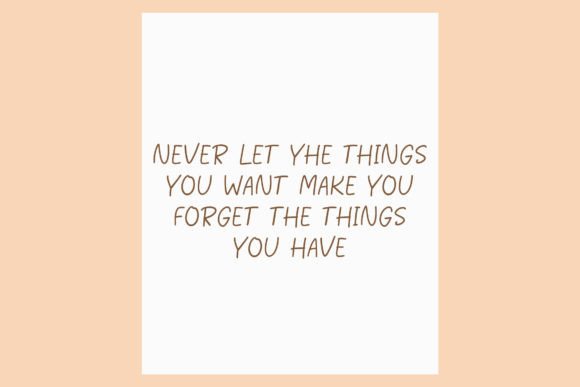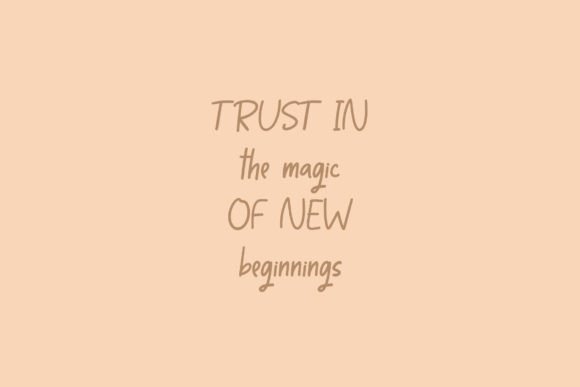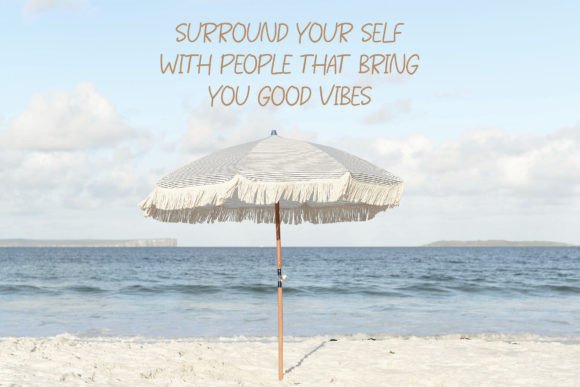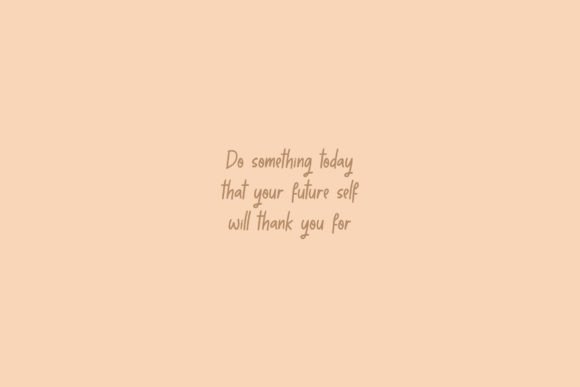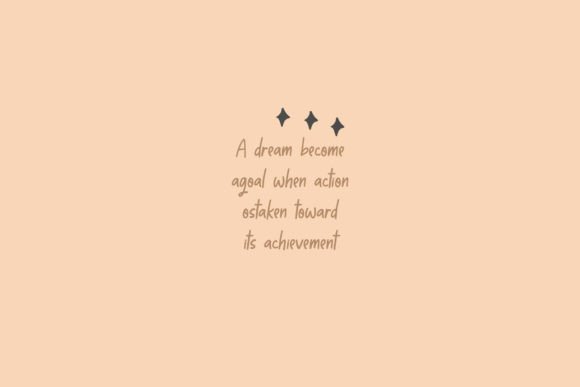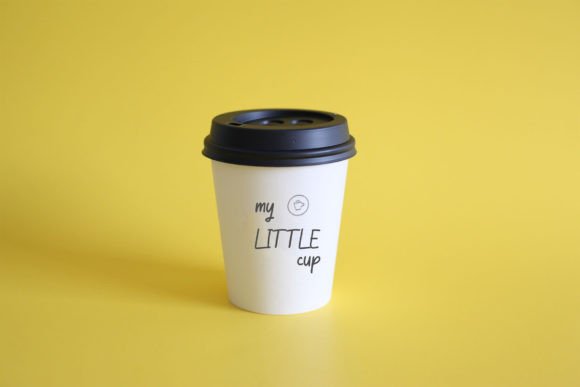
Introduction to Puffin Jelly Font
Puffin Jelly Handwriting Font Introducing Puffin Jelly, a playful and decorative handwriting font designed with uniquely shaped characters that add a vibrant and whimsical touch to any design.
Whether youโre working on product graphics or creative projects, Puffin Jelly brings an eye-catching charm that enhances your visual appeal .
Key Features of Puffin Jelly Font
Why Choose Puffin Jelly Font?
Puffin Jelly Font offers exceptional quality and versatility, making it a valuable addition to your design toolkit. Whether you’re creating for personal projects or commercial use, Puffin Jelly Font delivers professional results.